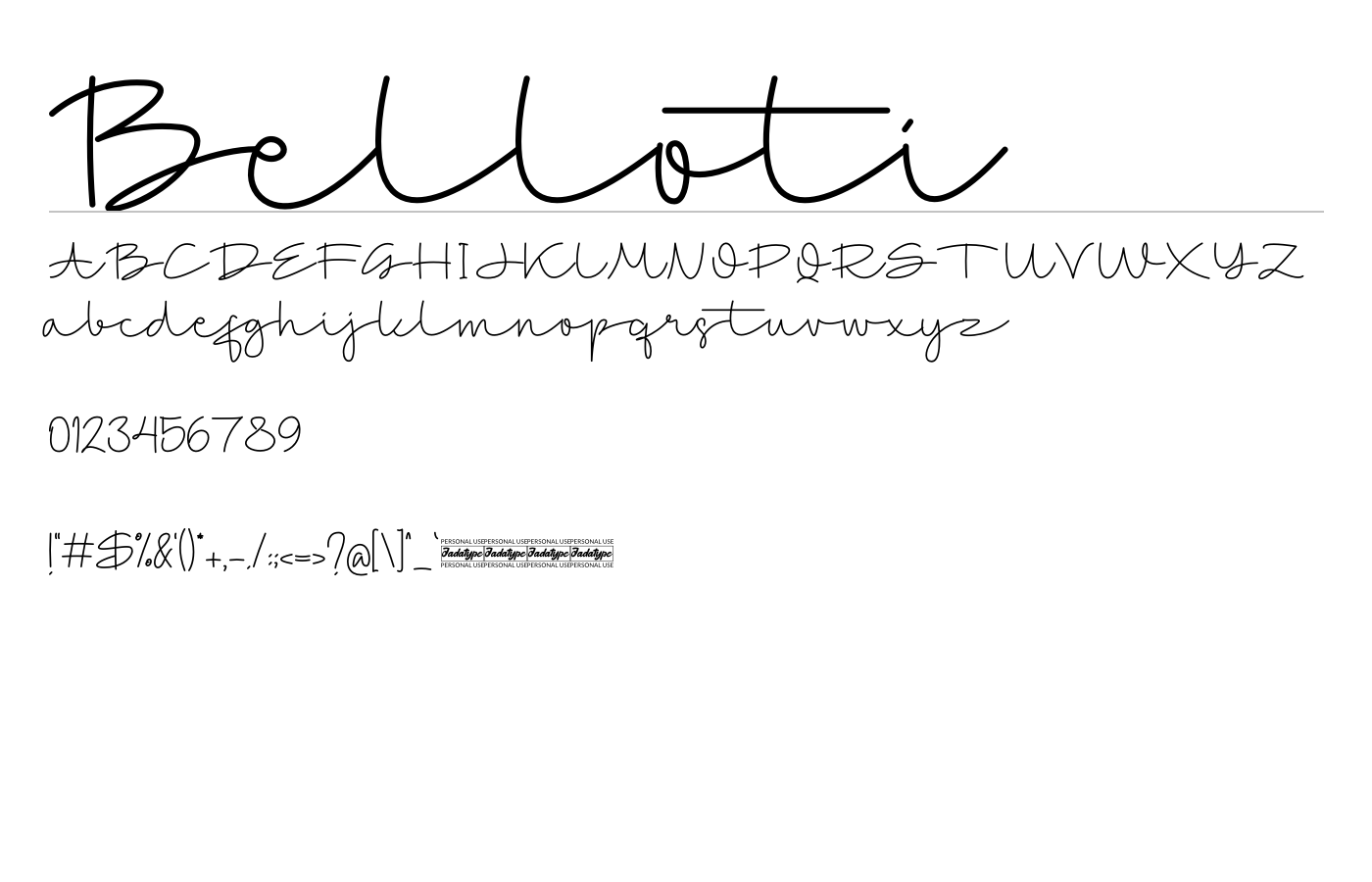
Belloti is a delicate, casual script font that feels light and airy with its thin, smooth strokes and tall x-height. Its handwritten style gives it a friendly, approachable vibe, making it perfect for personal branding, invitations, or creative projects that need a touch of elegance without formality. This font shines in designs where a warm, informal, yet refined look is desired.
Belloti Font